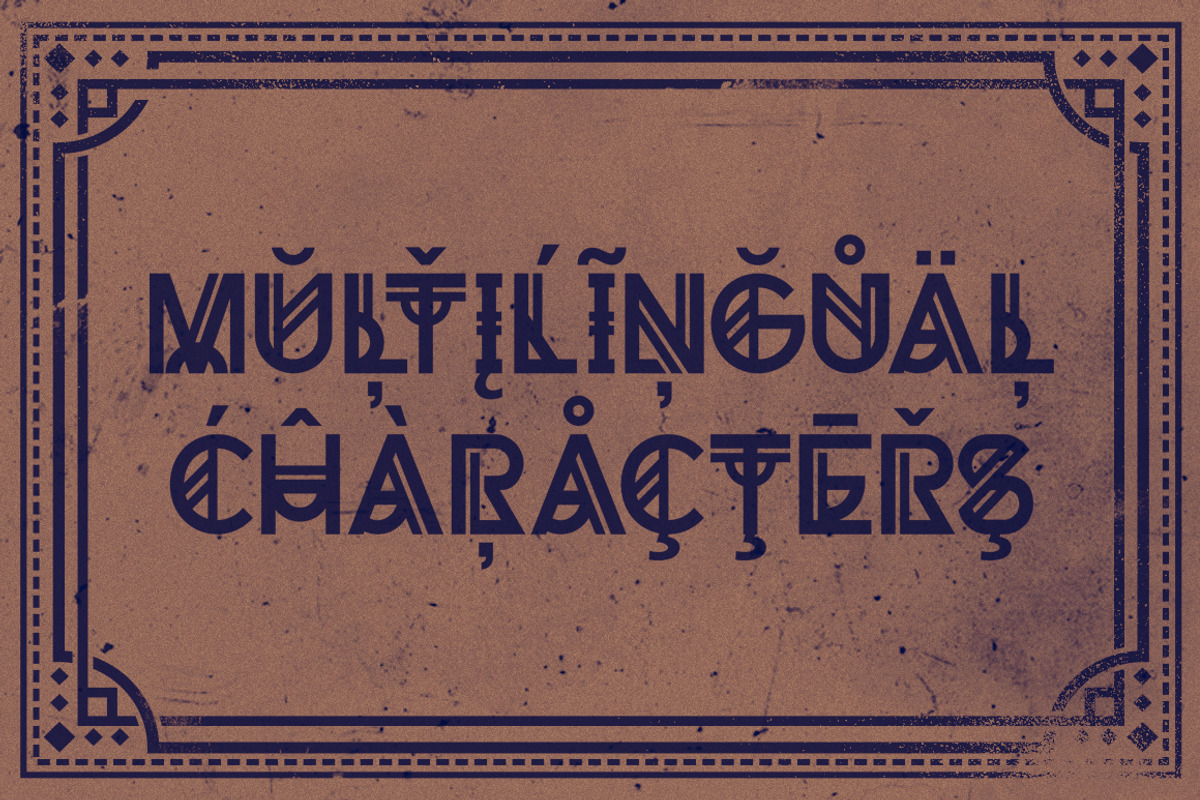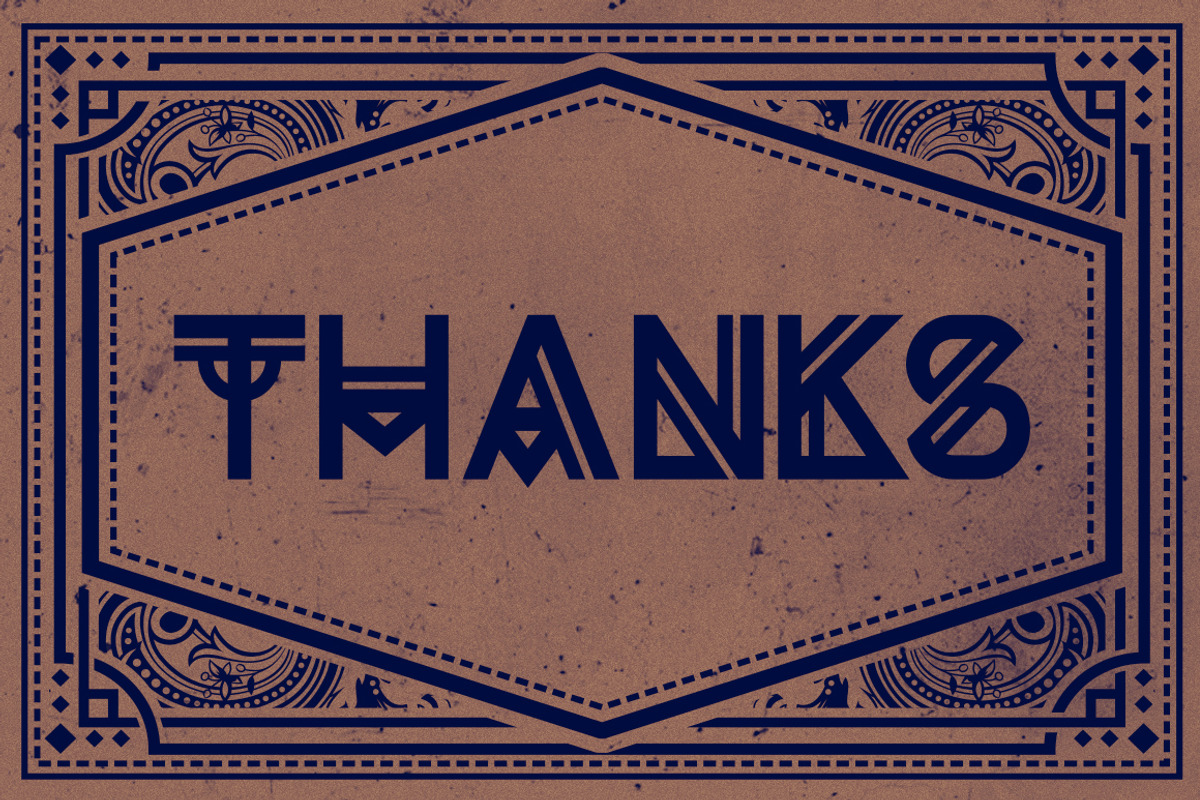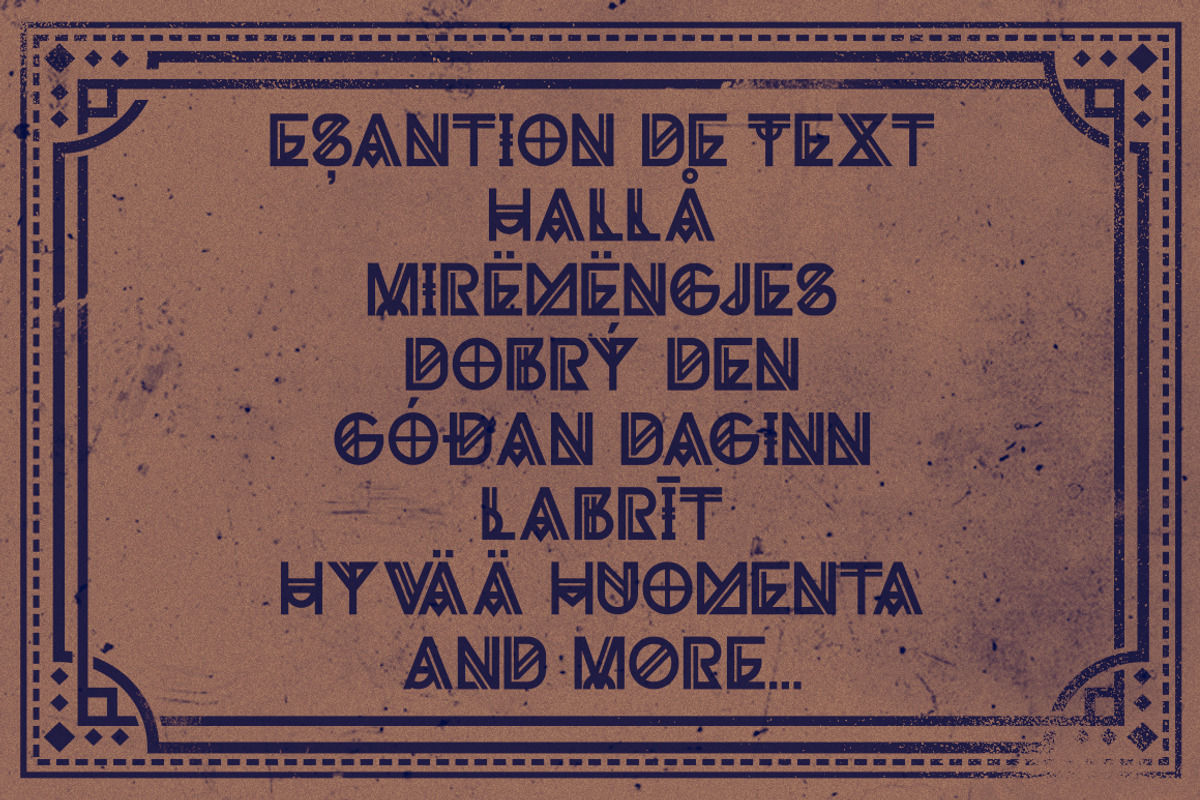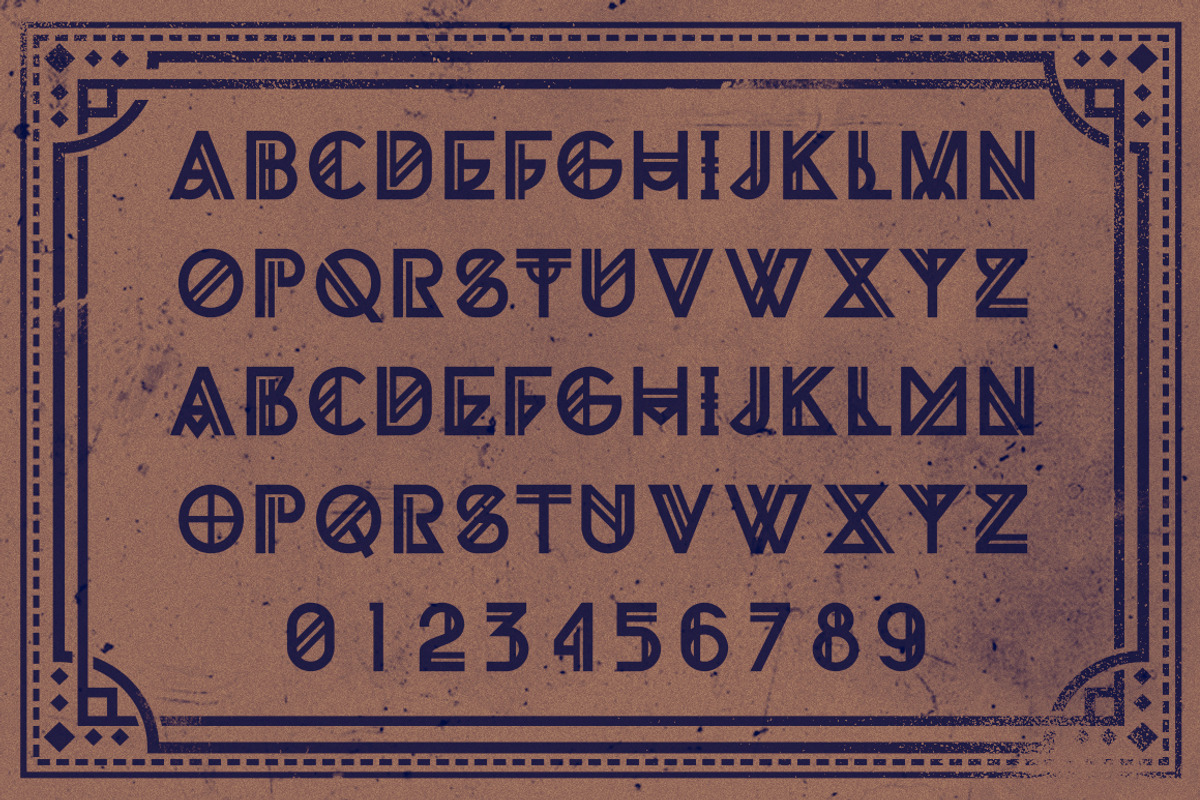
GRIBA Typeface
GRIBA Typeface by Alternate Studio is a font selected for branding, posters, packaging, typography.
- GRIBA Typeface is experimental display typeface, based on every shape of each characters and transformed into double lines which make this f
Why GRIBA Typeface is worth a look
GRIBA Typeface by Alternate Studio fits naturally into Branding, posters, packaging, typography.